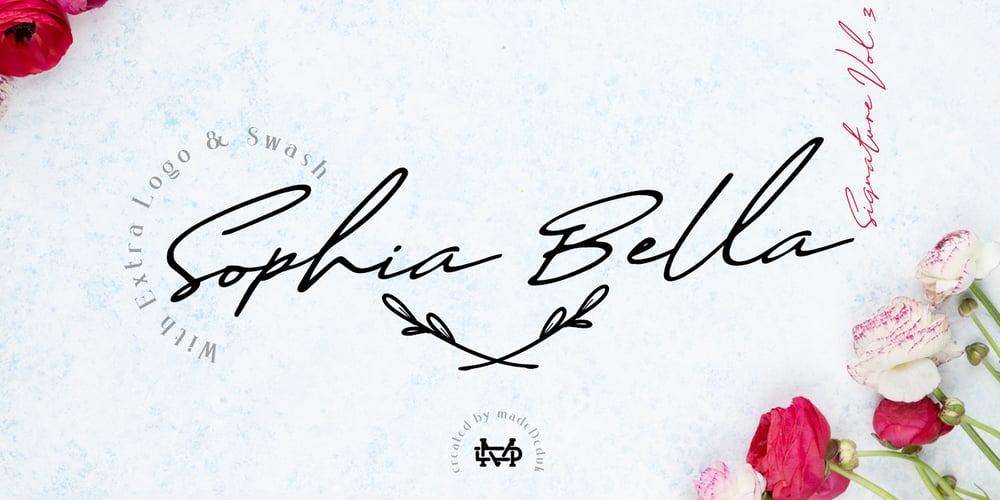
Sophia Bella
Sophia Bella font
Sophia Bella Font Family was designed by Suandana ipandemade and published by madeDeduk. Sophia Bella contains 3 styles and family package options. Sophia Bella is a gorgeous handmade signature font. It includes more than 170 ligatures to make everything look natural handmade signature and is perfect for poster design, book covers, merchandise, fashion campaigns, newsletters, branding, advertising, magazines, greeting cards, album covers, and quote designs and more.